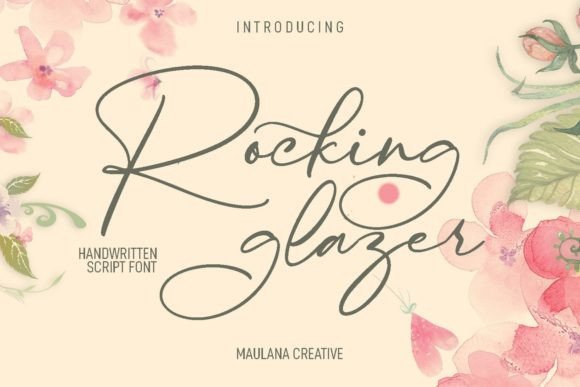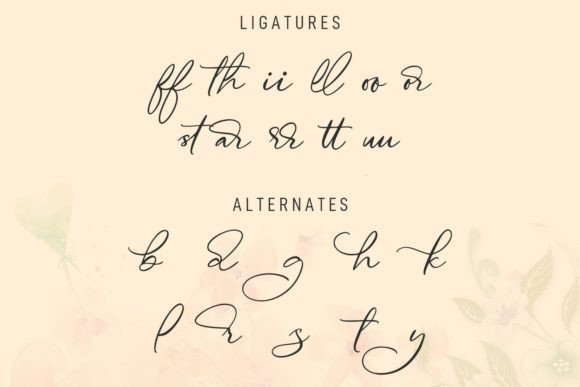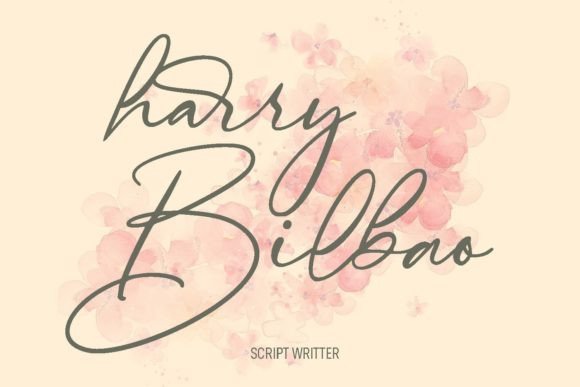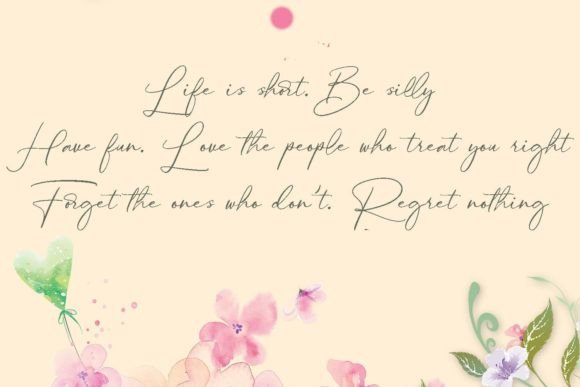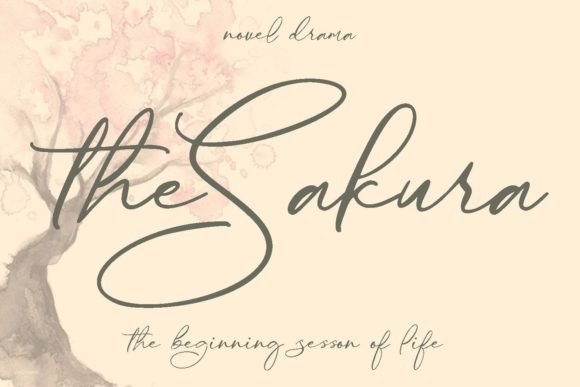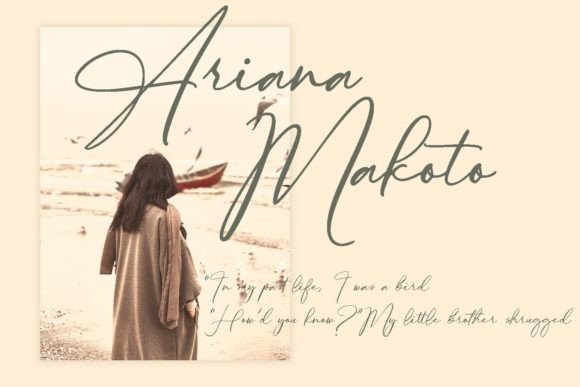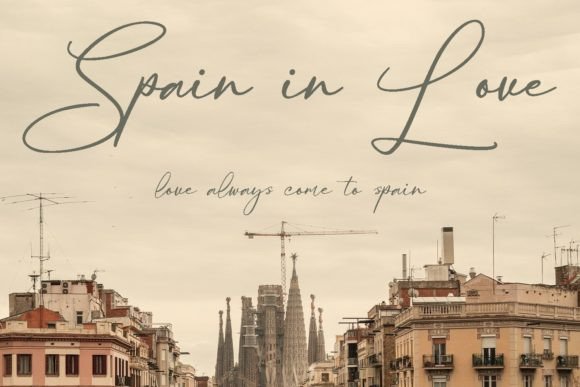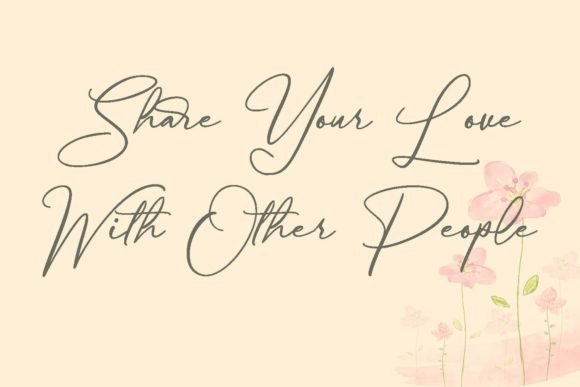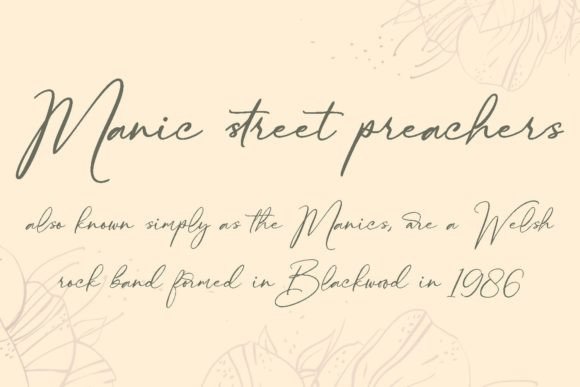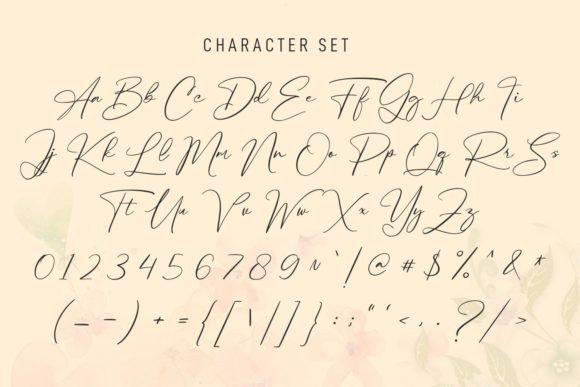
Rocking Glazer Font
About Rocking Glazer Font
“Rocking Glazer” is an expressive handwritten script font designed to add a touch of personality to your projects. With its light contrast stroke, playful characters, and unique ligatures and alternates, this font provides extra creative possibilities. Whether you’re working on logo design, social media graphics, movie titles, book titles, short or long text, “Rocking Glazer” proves to be a versatile choice. It can also serve as a complementary secondary text font when paired with sans or serif typefaces.
The expressive and fun nature of “Rocking Glazer” makes it suitable for a variety of design applications. Its handwritten script style adds a personal and artistic touch, creating designs that feel dynamic and engaging.
The inclusion of ligatures and alternates enhances the font’s flexibility, allowing for additional creative options in your design work.
In summary, “Rocking Glazer” is more than just a font; it’s a design tool crafted to bring expressiveness and creativity to your projects. Whether you’re designing logos, social media content, or book titles, let this handwritten script font be the element that adds character and charm to your designs.